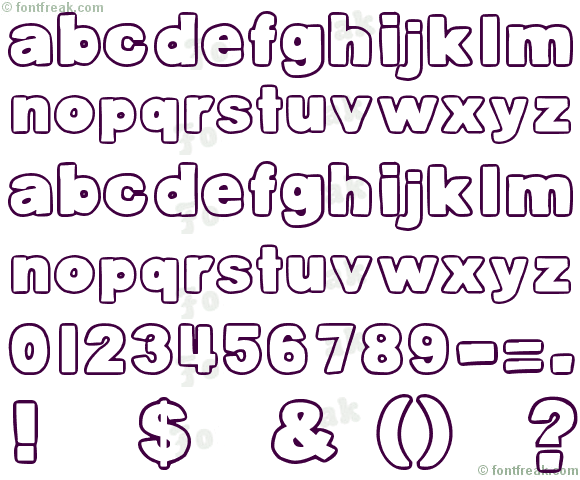
DJB Belly Button-Outtie
About DJB Belly Button-Outtie
DJB Belly Button-Outtie, designed by Darcy Baldwin, is a playful and whimsical display font that captures attention with its unique character. This font falls into the decorative category, making it an ideal choice for projects that require a touch of fun and creativity. The visual characteristics of DJB Belly Button-Outtie include bold, rounded letterforms that exude friendliness and approachability. The stroke weight is consistent throughout, with minimal contrast, which enhances its legibility while maintaining a light-hearted charm. The spacing between letters is generous, allowing for easy readability and a relaxed aesthetic, making it suitable for various applications.
This font is particularly well-suited for use in children's book titles, party invitations, and promotional materials for family-oriented events. Its playful nature makes it a great fit for restaurant menus aimed at a younger audience or playful branding for cafes. Additionally, DJB Belly Button-Outtie can elevate social media graphics and digital content, allowing content creators to engage their audience in a fun and inviting manner.
The target audience for this font includes graphic designers looking to add a whimsical element to their projects, small business owners seeking a unique brand identity, and content creators who want to capture the essence of playfulness in their designs.
Author Darcy Baldwin